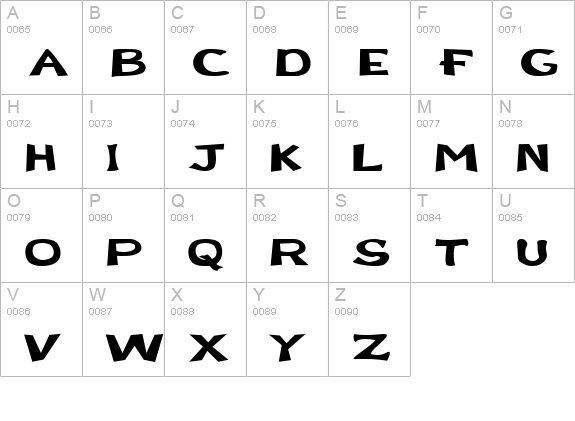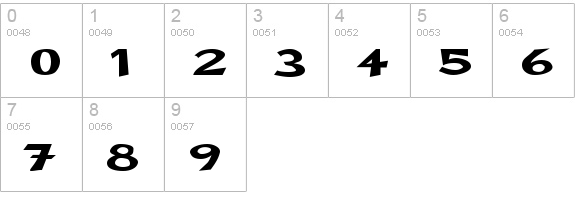
FZ BASIC 12 EX Font Details
FZ BASIC 12 EX is a versatile and modern font that combines simplicity with a touch of elegance. With its clean lines and sharp edges, this font is perfect for a wide range of design projects, from branding to editorial design. The FZ BASIC 12 EX font exudes a sense of professionalism and sophistication, making it a great choice for both digital and print applications. What sets FZ BASIC 12 EX apart is that it is freely available to download at FontsMarket.com. This means that you can access this high-quality font without any cost, making it a valuable resource for designers and creatives looking to elevate their work with a sleek and contemporary typeface. Whether you're working on a website, a poster, a logo, or any other design project, FZ BASIC 12 EX is sure to make a strong and stylish statement.